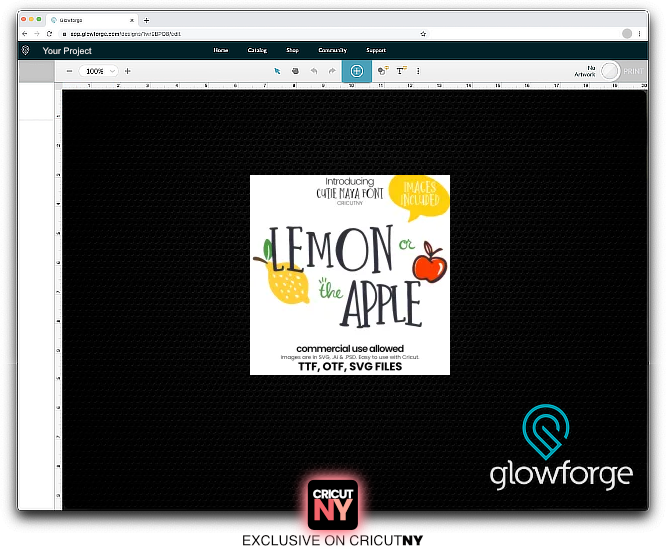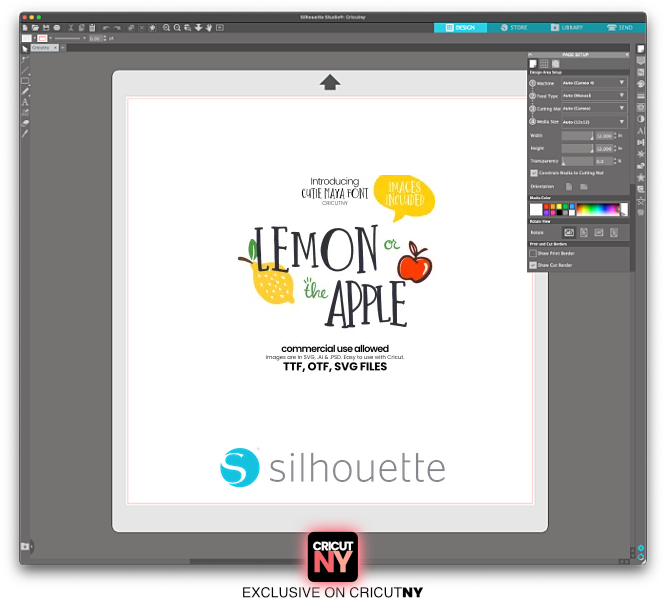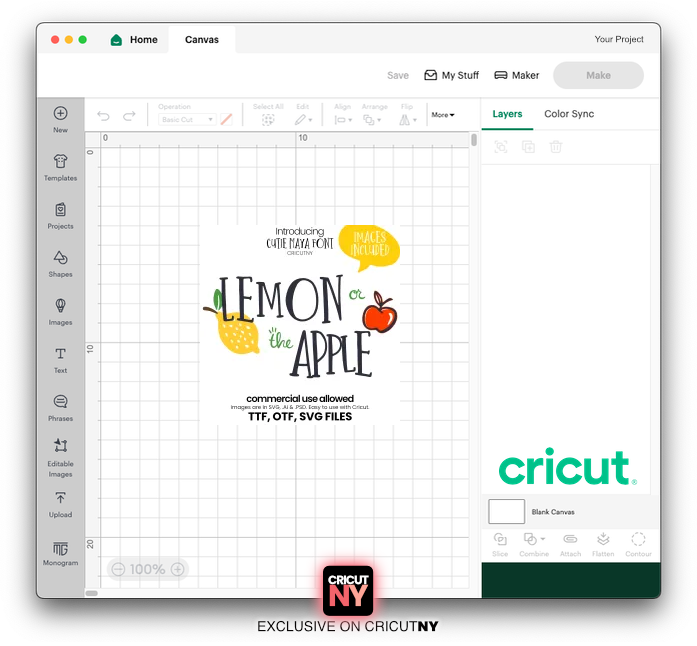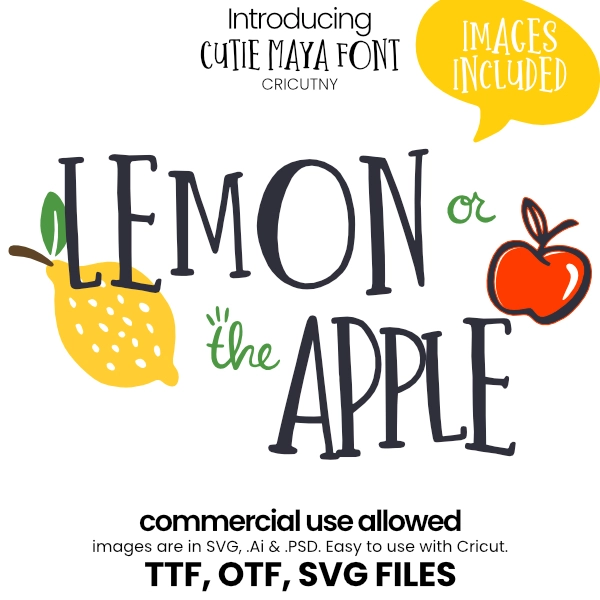
Yes, here’s a farmhouse font Cricut mixed with a serif style. You have both types in one font, which gives this surprisingly cute feeling. And you can create some fantastic Cricut summer projects with that font!
If you ask, what is a farmhouse font?
A farmhouse font should be cute with thin lines. Think of the Rae Dunn font. For the visual people, that would be the best example.
If you ask me what are the best farmhouse fonts on cricut design space, I would show you two fonts. The Rae Dunn font from Berkeley, and this one, the Cutie Maya font. Both have their unique style, and both make a product incredibly catchy. For example, if you sell mugs, the two fonts are a winner for your sales.
The Rae Dunn font is more for the feminine audience, while this font, the Cutie Maya font, is used for a summer feeling. Anything that relates to summer should have that font.
And if you want to impress your mom, your kids or a friend, that font will make them smile, 100% guaranteed.
Last week, I purchased a glass juice pitcher at Walmart and with the Cricut machine, I printed a super cute sticker for my daughter. She likes apples very much, so I added an apple drawing to the title “Apple Juice.” (You have the apple in the package). It looks stunning, and when I look at the pitcher, I strongly feel summertime. That’s a relaxing feeling for the family. I hope you’ll feel the same. 🙂
Why not a lemonade glass pitcher with a sticker for the summer!
The additional words that could complete your design are provided as images. (In, Or, The, To, Is).
That creates a duo font that makes a design very unique.